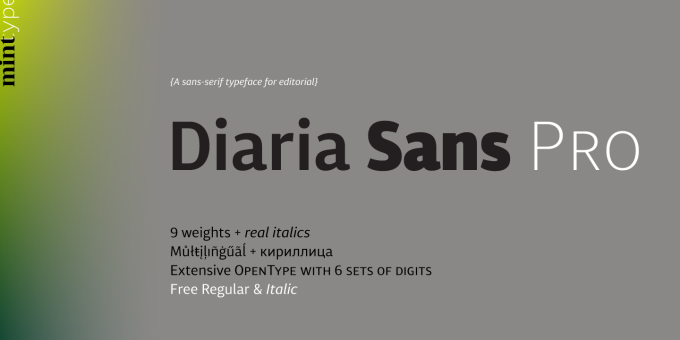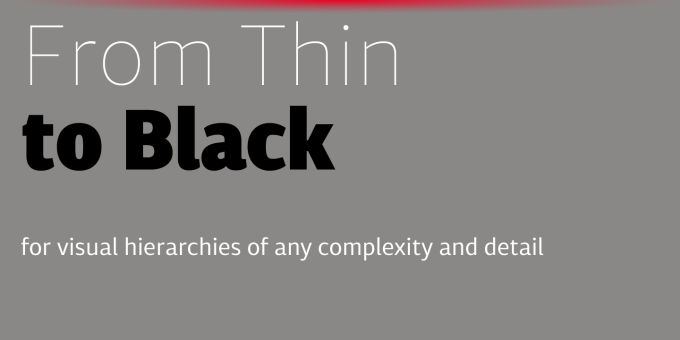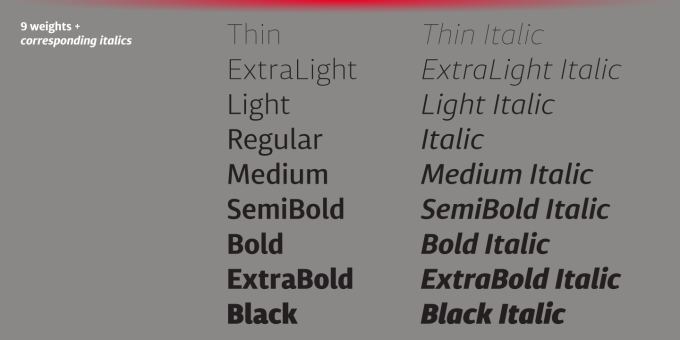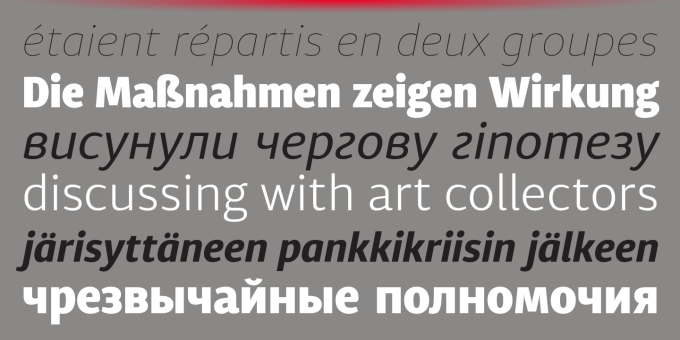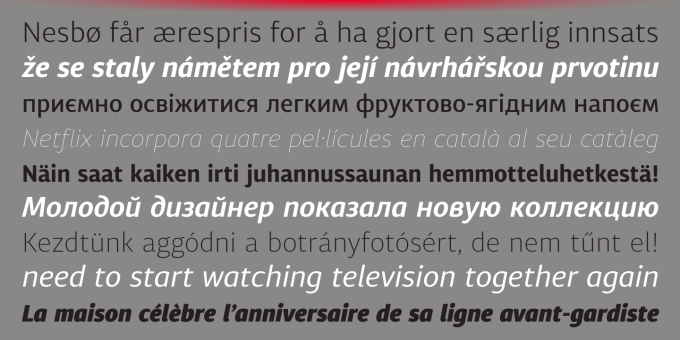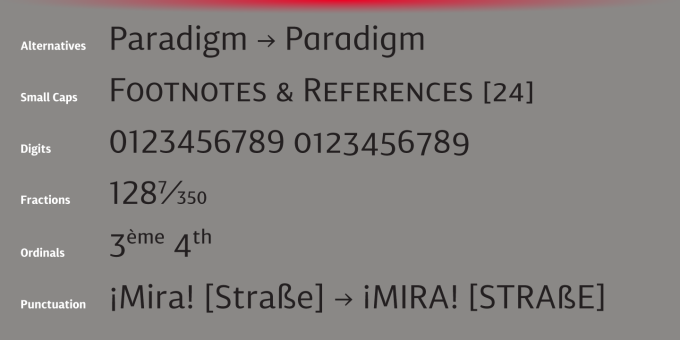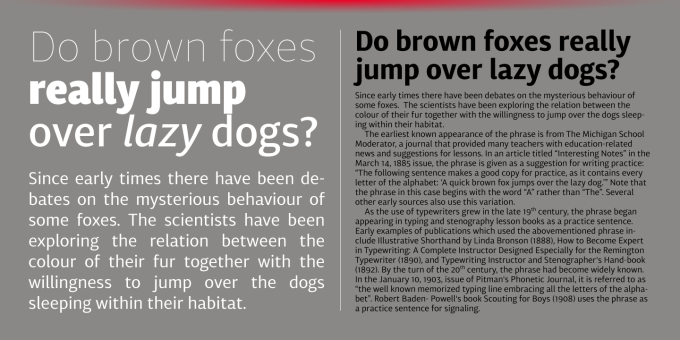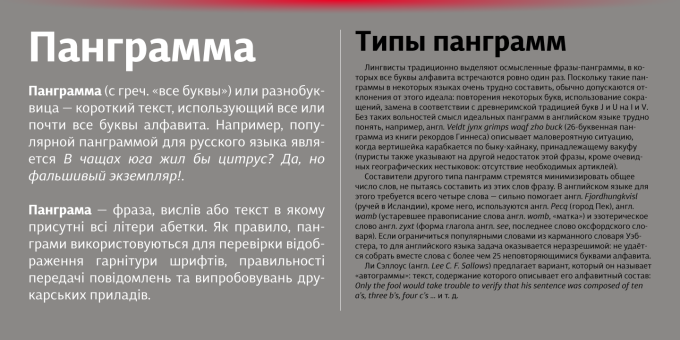
Diaria Sans Pro
Diaria Sans Pro is a sans-serif counterpart of Diaria Pro. With its extensive 9 weights and corresponding italics, extensive language support, and various OpenType features it is meant to build visual heirarchies of any detail and complexity in editorial design.
This modern sans-serif typeface designed as a universally legible medium for both titles and paragraph text. Its large x-height and static exteriors allow comfortable reading in printed narrow columns as well as in screen graphics.